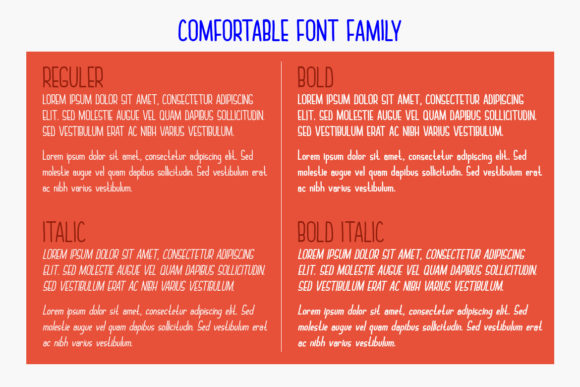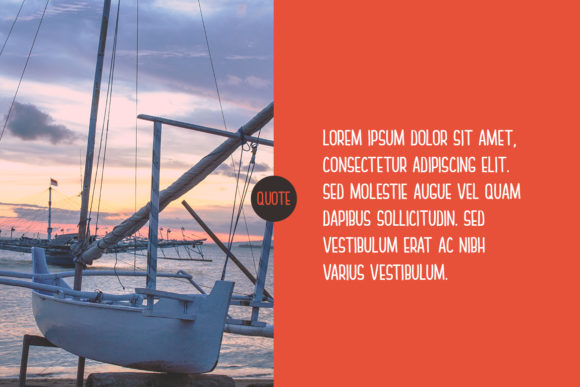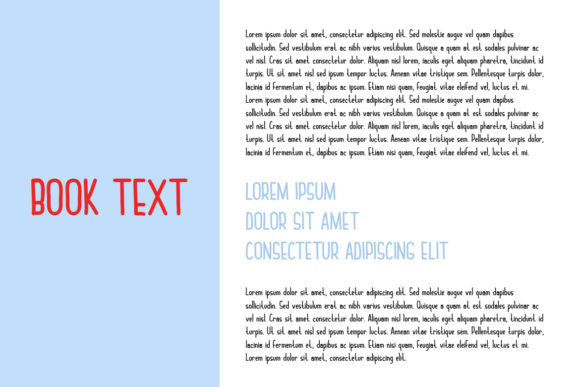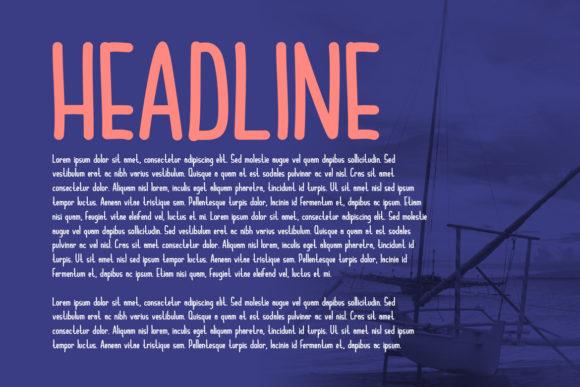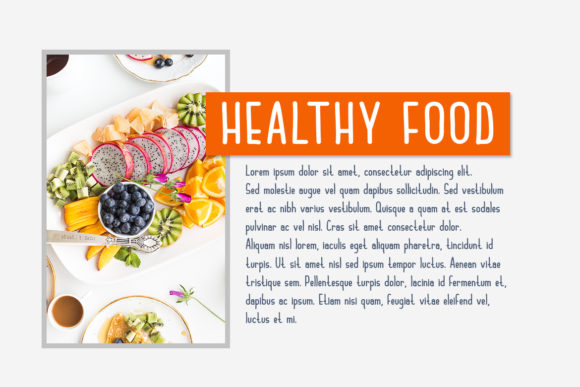
Introducing Comfortable Font: The Timeless Sans Serif for Modern Designs
Are you tired of using fonts that are too flashy or over-the-top? Do you want a font that exudes simplicity and timelessness? Look no further than Comfortable Font, a cool and simple sans serif font that’s perfect for designers and crafters alike. In this article, we’ll dive into the world of Comfortable Font and explore its features, benefits, and uses.
What is Comfortable Font?
Comfortable Font is a sans serif font that boasts an incredibly timeless look. Its clean lines, simple shapes, and classic proportions make it a versatile font that’s suitable for a wide range of design projects. Whether you’re working on a logo, brochure, website, or social media graphics, Comfortable Font is the perfect choice.
Key Features of Comfortable Font
- Simple and Clean Design: Comfortable Font features a simple and clean design that’s easy on the eyes. Its sans serif design makes it perfect for digital and print applications.
- Timeless Look: The font’s classic proportions and simple shapes give it a timeless look that won’t go out of style anytime soon.
- Versatile: Comfortable Font is suitable for a wide range of design projects, from logos and brochures to websites and social media graphics.
- Easy to Read: The font’s clear and legible design makes it easy to read, even at small sizes.
Benefits of Using Comfortable Font
So why should you choose Comfortable Font for your design projects? Here are just a few benefits:
- Professional Look: Comfortable Font gives your designs a professional look that’s perfect for businesses, organizations, and individuals.
- Easy to Pair: The font’s simple design makes it easy to pair with other fonts, allowing you to create unique and interesting typography combinations.
- Cross-Platform Compatibility: Comfortable Font is compatible with a wide range of devices and platforms, ensuring that your designs look great everywhere.
Uses of Comfortable Font
Comfortable Font is a versatile font that can be used in a wide range of design projects, including:
- Logos and Branding: Use Comfortable Font to create a professional and timeless logo that represents your brand.
- Brochures and Flyers: The font’s clear and legible design makes it perfect for brochures, flyers, and other print materials.
- Websites and Social Media: Comfortable Font is also suitable for websites and social media graphics, where its simple design can help to improve readability and user experience.
Tips for Using Comfortable Font
Here are a few tips for using Comfortable Font in your design projects:
- Use it as a Headline Font: Comfortable Font works well as a headline font, where its simple design can help to grab attention and draw the reader in.
- Pair it with Other Fonts: Don’t be afraid to pair Comfortable Font with other fonts to create interesting and unique typography combinations.
- Experiment with Different Sizes: Comfortable Font looks great at a wide range of sizes, so don’t be afraid to experiment and find the perfect size for your design.
In conclusion, Comfortable Font is a cool and simple sans serif font that’s perfect for designers and crafters alike. Its timeless look, versatility, and ease of use make it a great choice for a wide range of design projects. Whether you’re working on a logo, brochure, website, or social media graphics, Comfortable Font is the perfect choice. So why not give it a try and see the difference it can make in your designs?